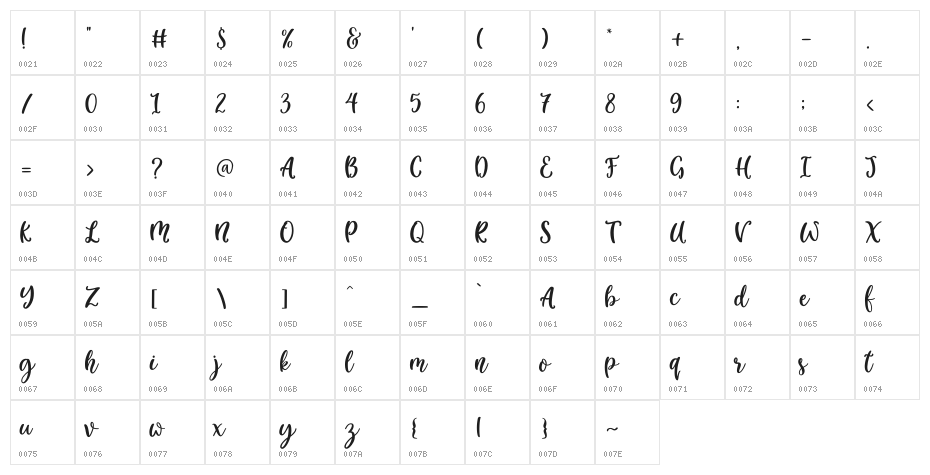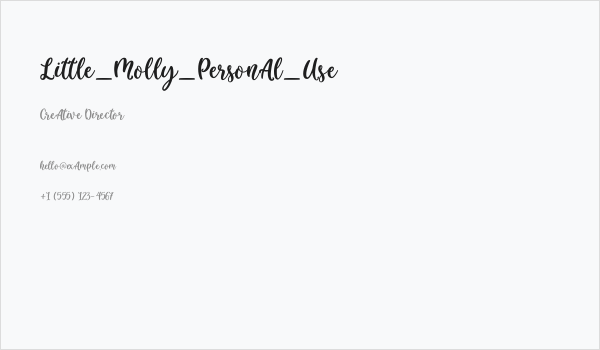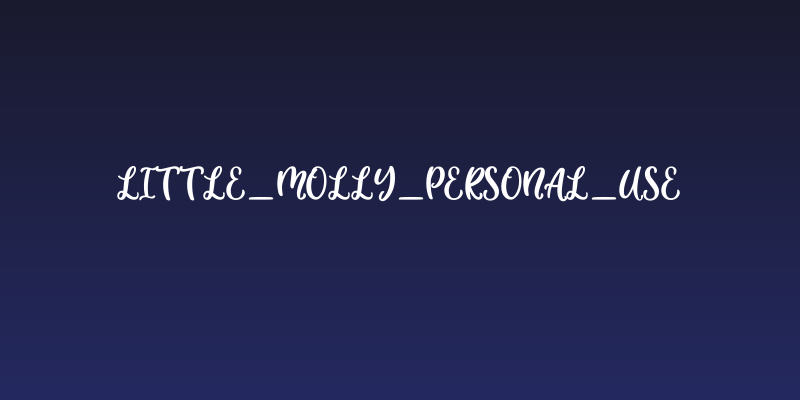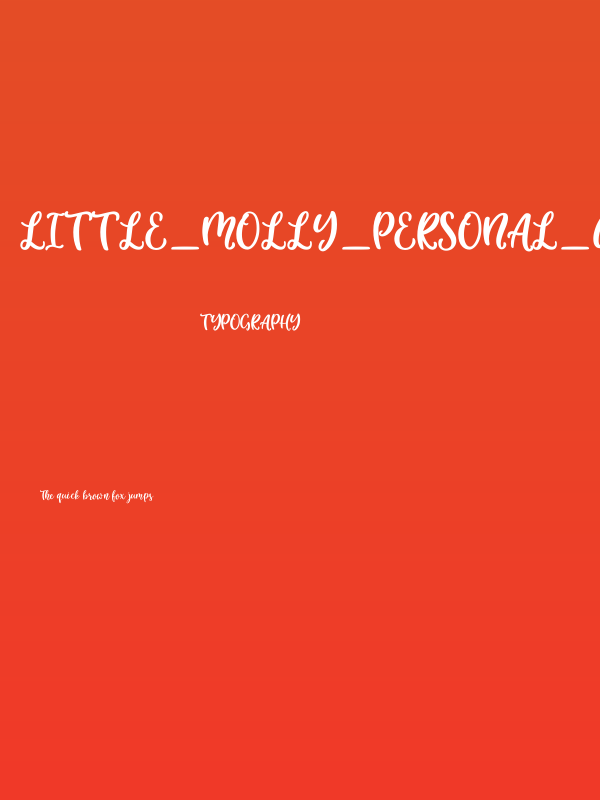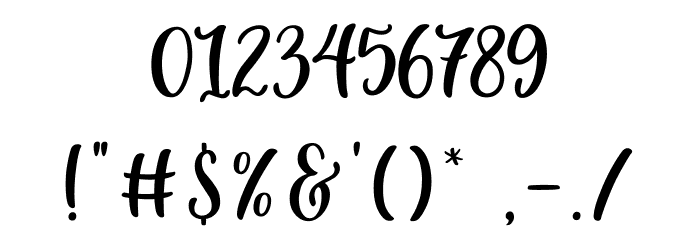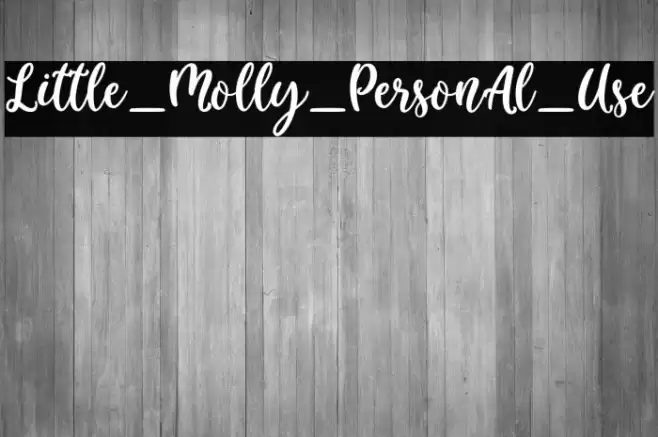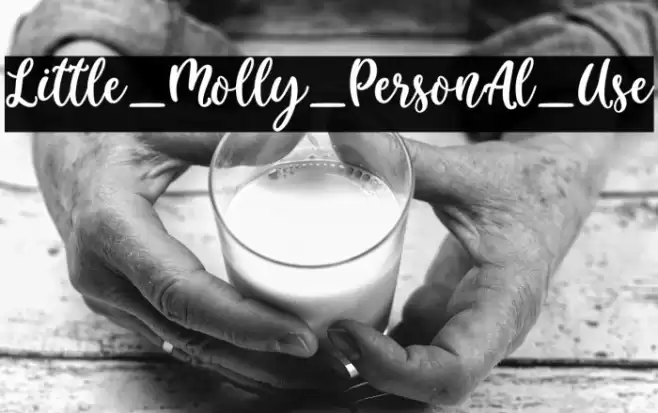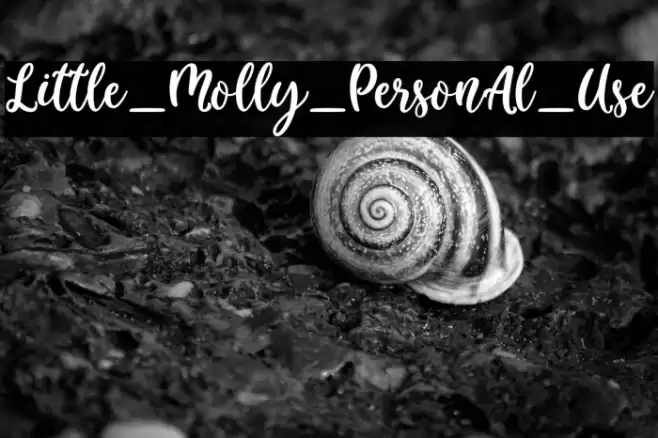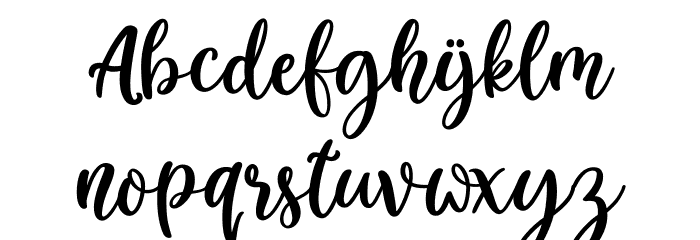
Little_Molly_Personal_Use Font
Little_Molly_Personal_Use Description
This font features a playful and whimsical script style with a handwritten appearance. The letters are fluid and connected, giving it a lively and dynamic feel. The uppercase letters are bold and slightly larger, while the lowercase letters maintain a consistent flow with elegant loops and curves. The numbers and special characters are designed to match the overall style, ensuring cohesion across all elements. This font is perfect for projects that require a personal touch, such as invitations, greeting cards, or branding materials that aim to convey warmth and friendliness.
| Use Case | Headlines, Logos, Invitations |
| Proposed Projects | Ideal for invitations, greeting cards, branding, and any project needing a personal touch. |